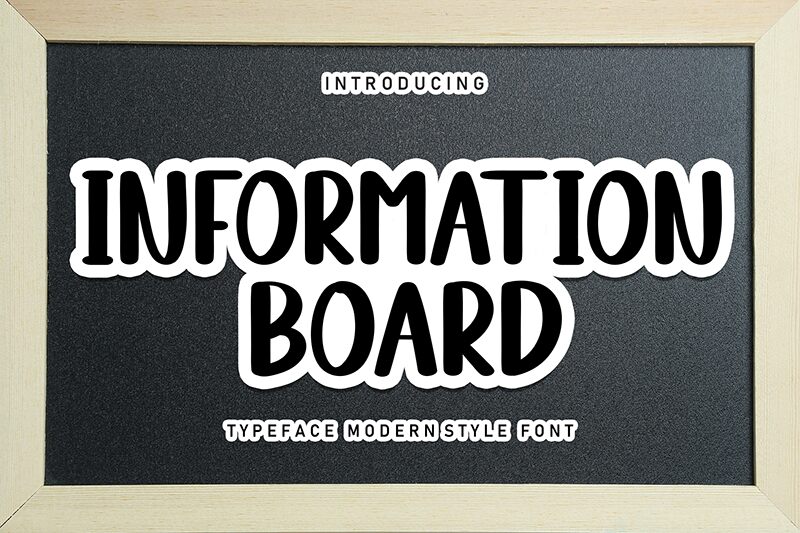
Information Boards font features a unique and inviting style, presenting a script font free for personal use by designer Andi Moz. Its contemporary design creates a smooth, friendly appeal with a touch of modern whimsy. With a balanced and structured form, it stands approachable yet intentionally informal. Tailored from inspirations coming from timeless road signs, airports, and train station signs, Information Boards manages its everyday tone by minimizing complexity.
This is a sweet and friendly handwritten display font. Cute and fun, this font is ideal for creating wedding invitations, cards, or any other design project that requires a playful touch.